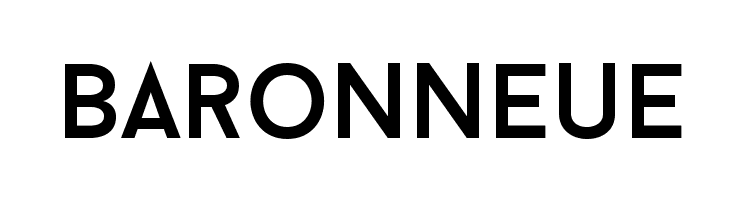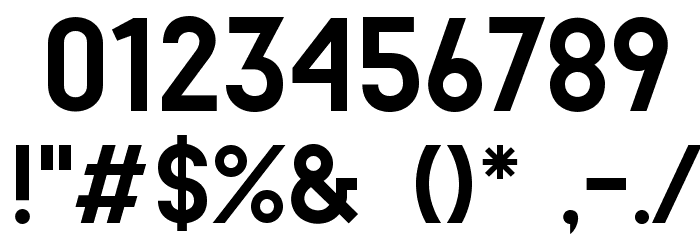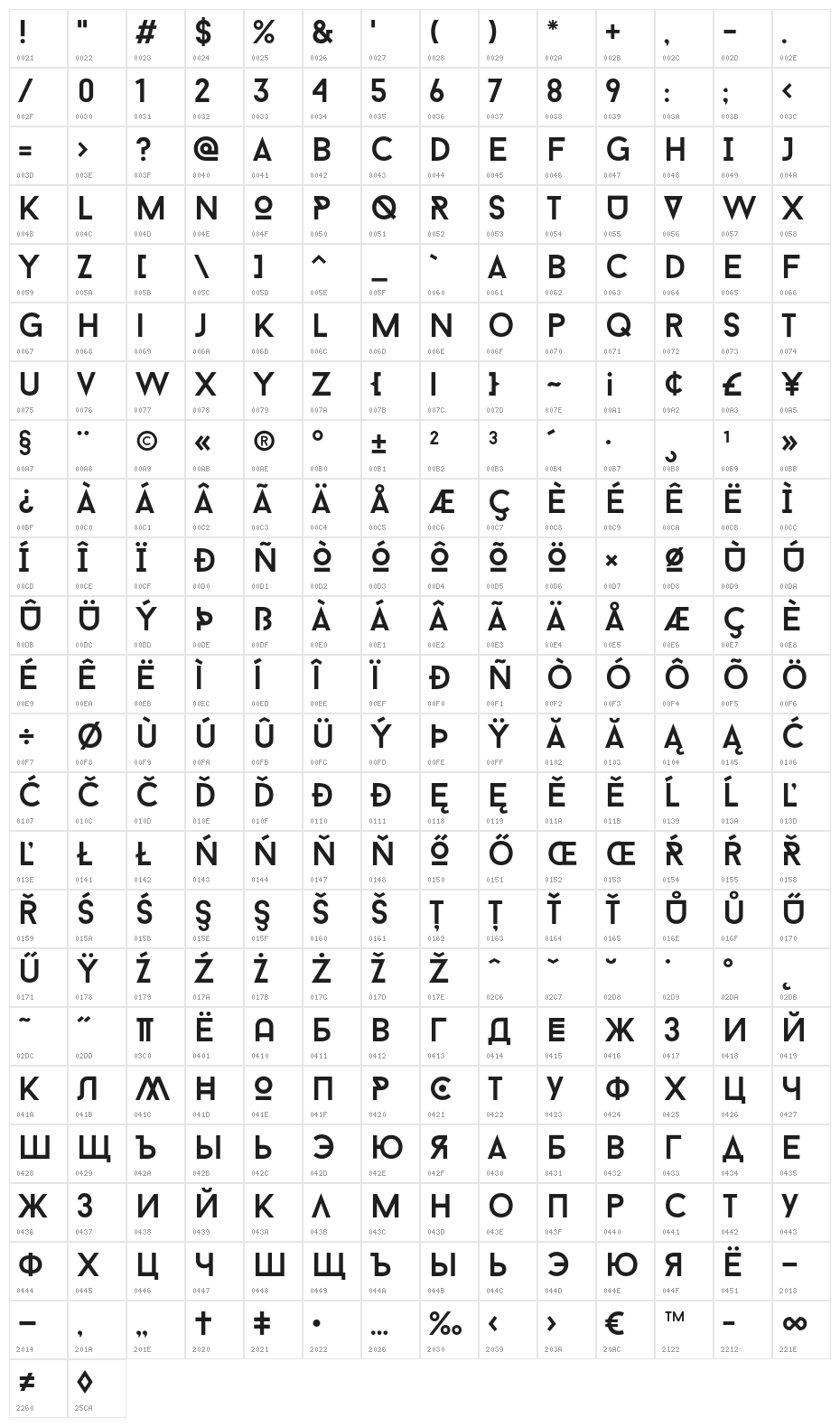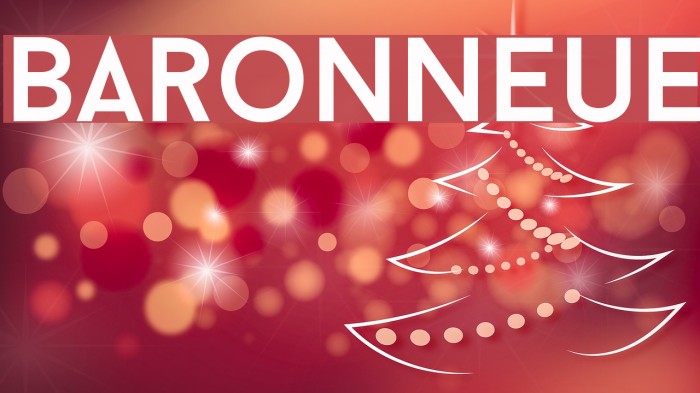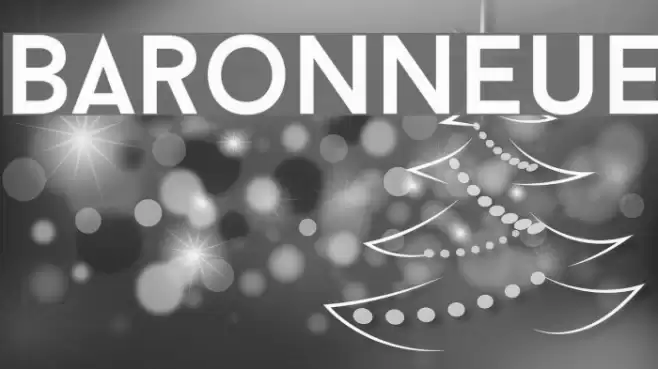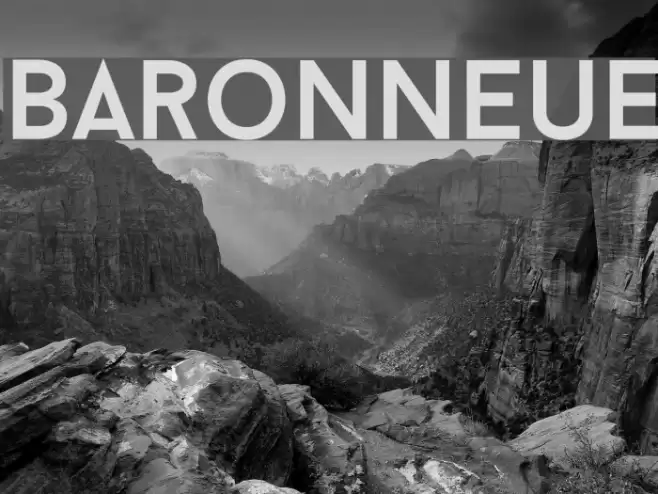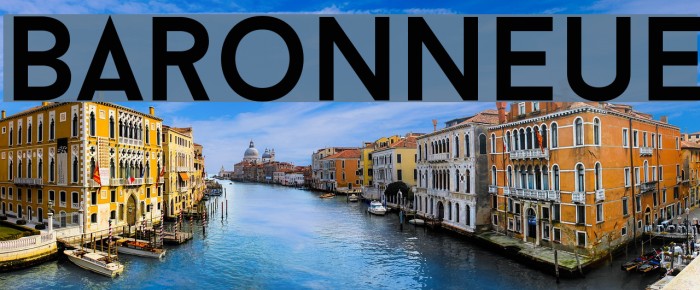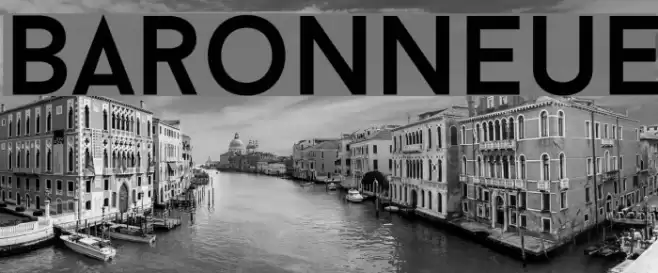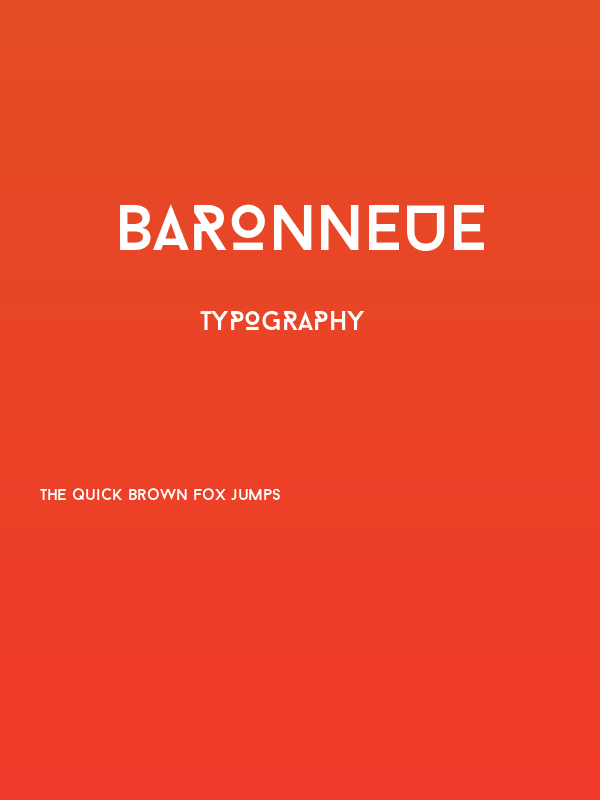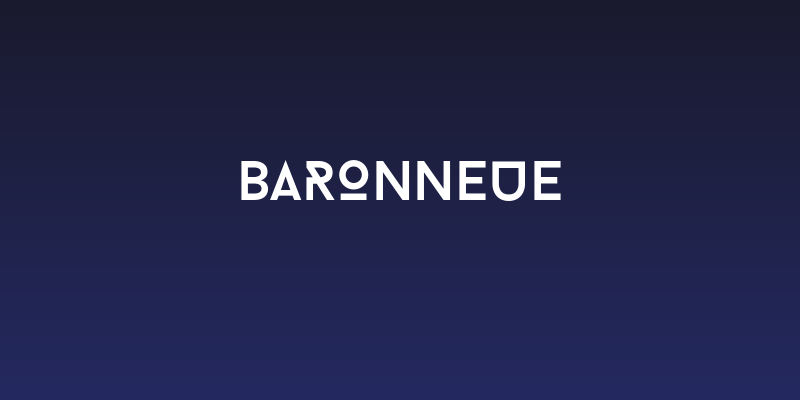
BaronNeue Font
BaronNeue Description
This font features a bold and geometric sans-serif style, characterized by clean lines and a modern aesthetic. The uppercase letters are uniform in height, with a consistent stroke width that gives it a strong and assertive presence. The numerals are equally bold, maintaining the geometric theme with sharp angles and clear legibility. Special characters are designed to complement the overall style, ensuring versatility across various applications. The font's simplicity and clarity make it suitable for a wide range of design projects, from branding to digital media.